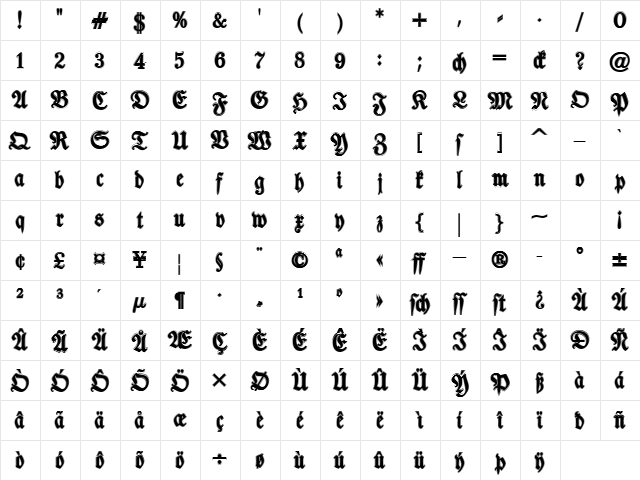
TypographerFraktur Contour Regular
| Designer | Dieter Steffmann |
Design Context for TypographerFraktur Contour Typeface
TypographerFraktur Contour channels the dramatic heritage of Fraktur and Gothic scripts, bringing a sense of historical gravitas to any design.
A natural fit for music packaging, gothic editorial design, and any project that needs historical weight.
Font Pairing: Pair with a clean neutral sans-serif for body copy to let TypographerFraktur Contour's character lead without overwhelming the composition.
Pro Tip: Reserve TypographerFraktur Contour for display and logo use — pair it with a clean sans-serif for body copy to prevent the composition from feeling oppressive.